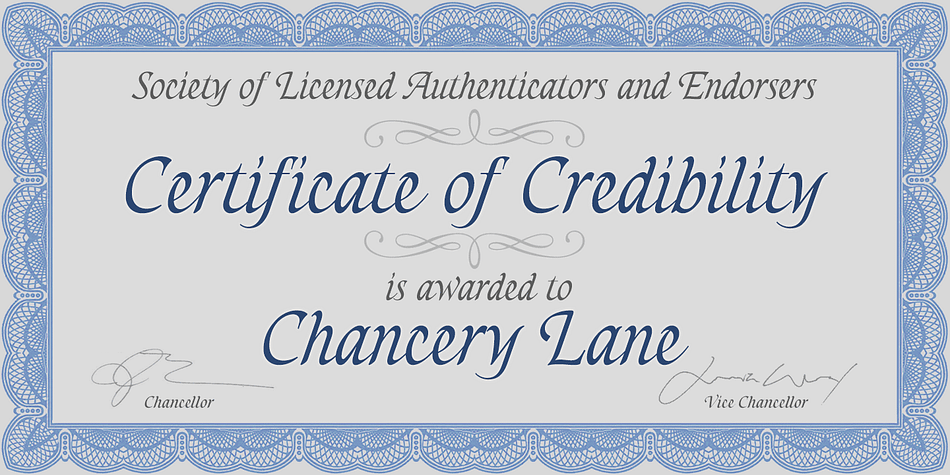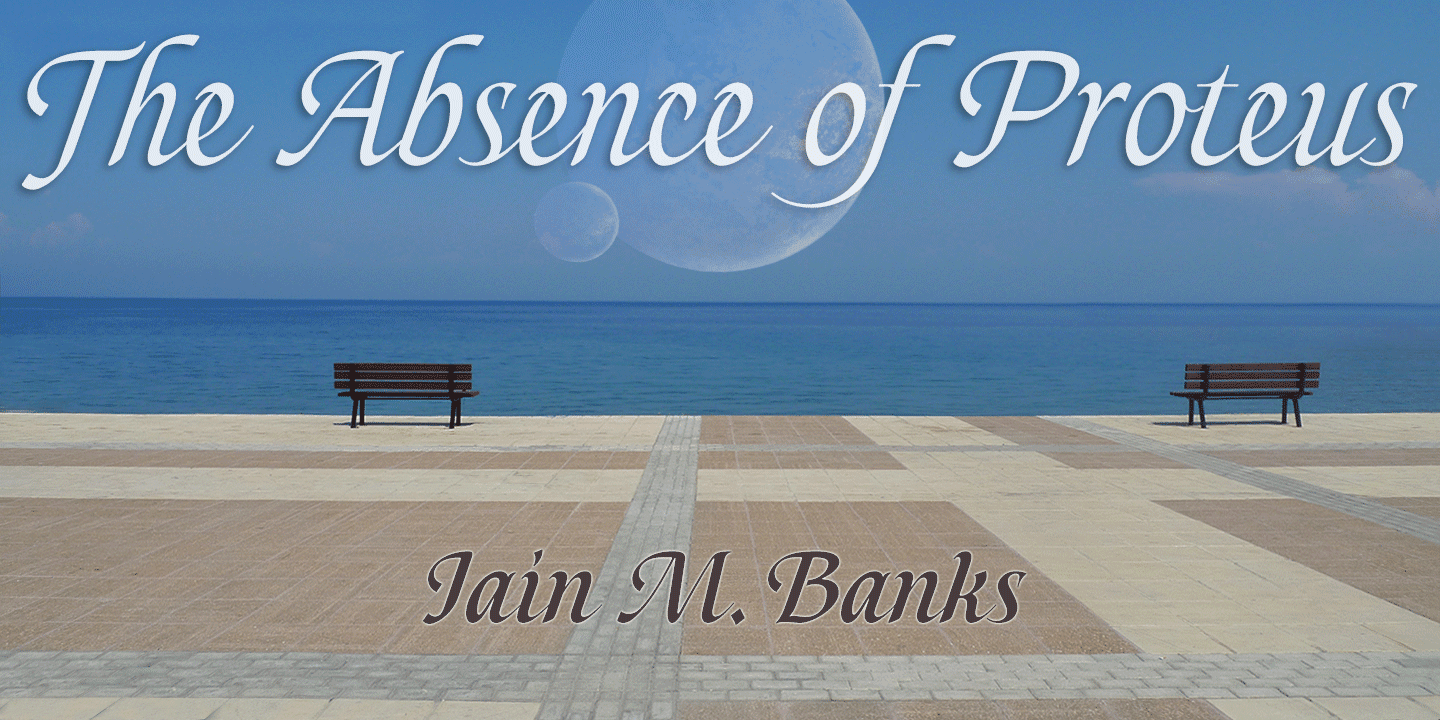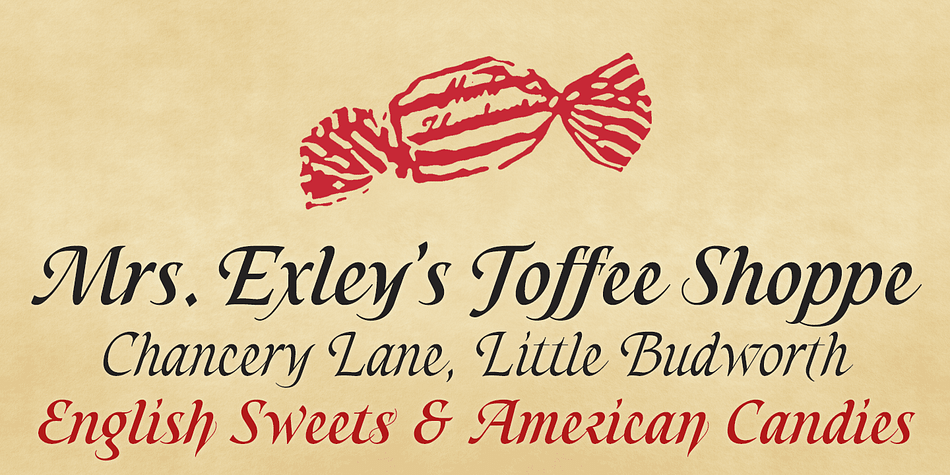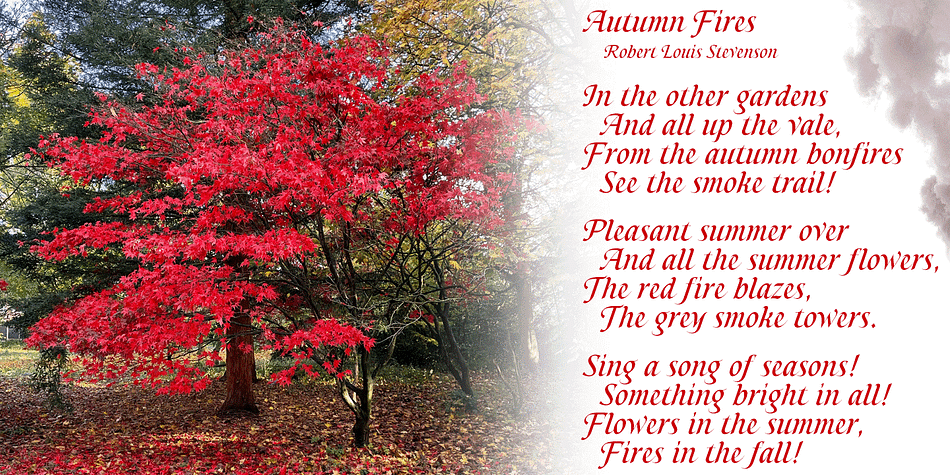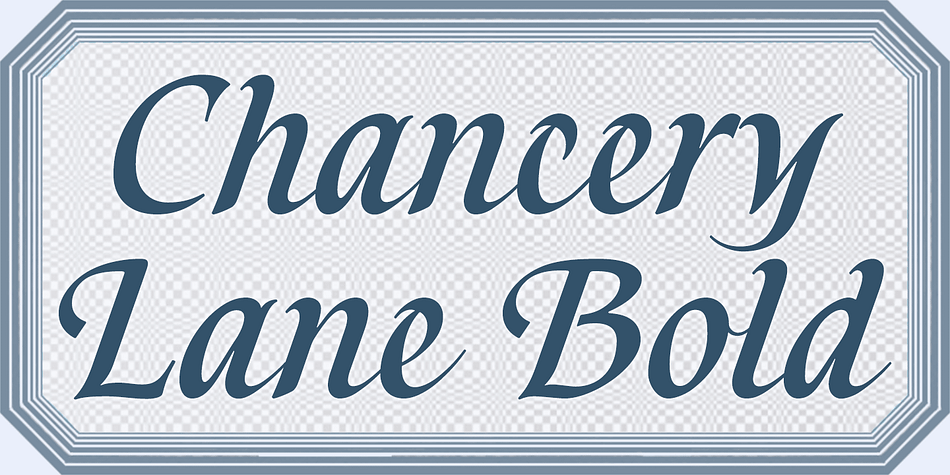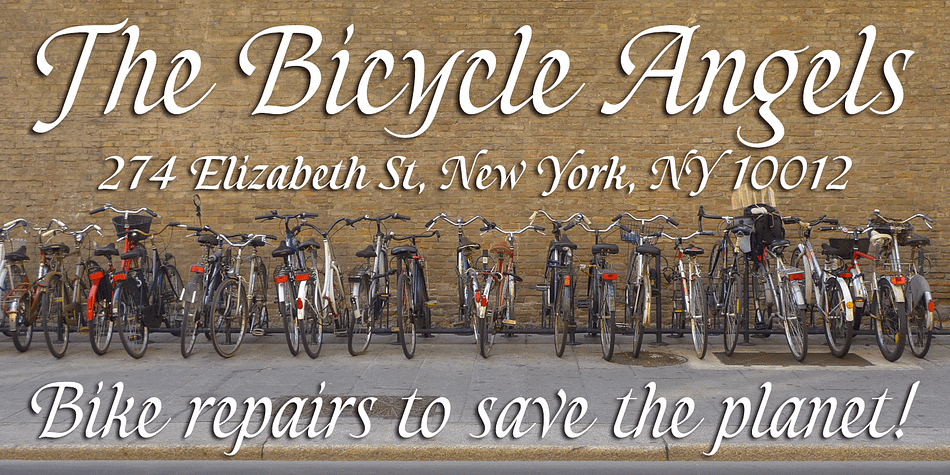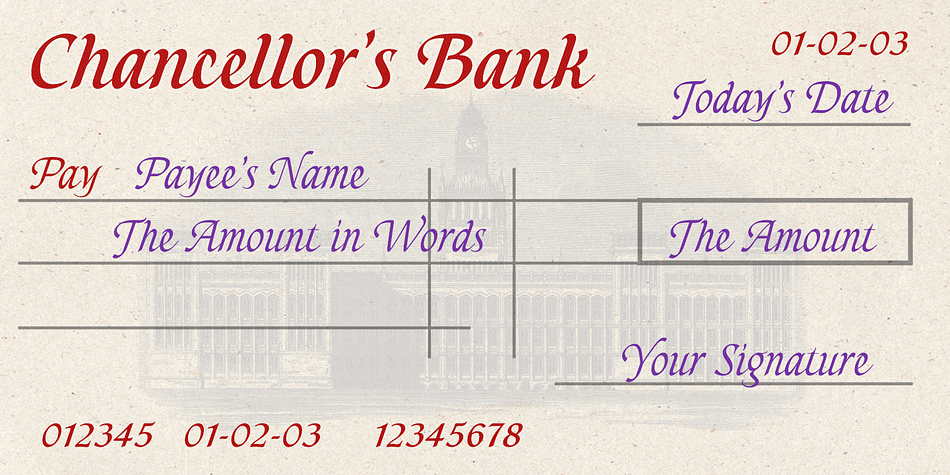
Chancery Lane
Designed by Keith Bates, Chancery Lane is a script font family. This typeface has two styles and was published by K-Type.
Chancery Lane is a condensed cursive with a breezy, flowing feel. Many of the lowercase characters join up, some uppercase ones too, and the two fonts are slantier than many other chancery-inspired faces, inclined at almost 20°. Each glyph has slightly rounded corners to bestow softness and warmth.
The typeface emerged from a study of pen lettering, italic scripts and chancery hands – down a rabbit hole and along the Chancery Lane. The research ranged from early cancellaresca manuscripts to contemporary fonts, and also calligraphic work, most notably that of Indian artist Mayank Baranwal whose lowercase letters inspired many of the Chancery Lane glyphs.
Uppercase characters have been designed to harmonise with the lowercase rather than providing overly ornamental openers, true to origins that were functional rather than fancy. Both the capitals and the uppercase alternates are unfussy and relatively simple, and the lowercase swash characters are similarly understated, only modestly flourished. Stylistic alternates and lowercase swash characters can be accessed using OpenType-aware applications or font management software.